Modern Vintage Fonts & Graphics Bundle – 300+ Unique Fonts & Illustrations
A new collection of vintage design assets featuring 10 modern vintage font families and 3 separate sets of vintage style design elements as well as premade compositions that’ll come in handy whenever you’re working on vintage themed projects for print or digital designs
In this package you will find 10 vintage style font families that include 70+ fonts, with different styles like textured stamps, rounded and rough, each one with OpenType features such as ligatures and alternate characters, and characteristic design styles that will instantly your compositions with a vintage, wild west aesthetic
Additionally, the bundle contains 3 sets of design elements with over 220 hand drawn illustrations, delivered with use-ready PNG files with transparent backgrounds as well as editable vector source files in AI and EPS formats, which you can scale up and down and recolor however you want
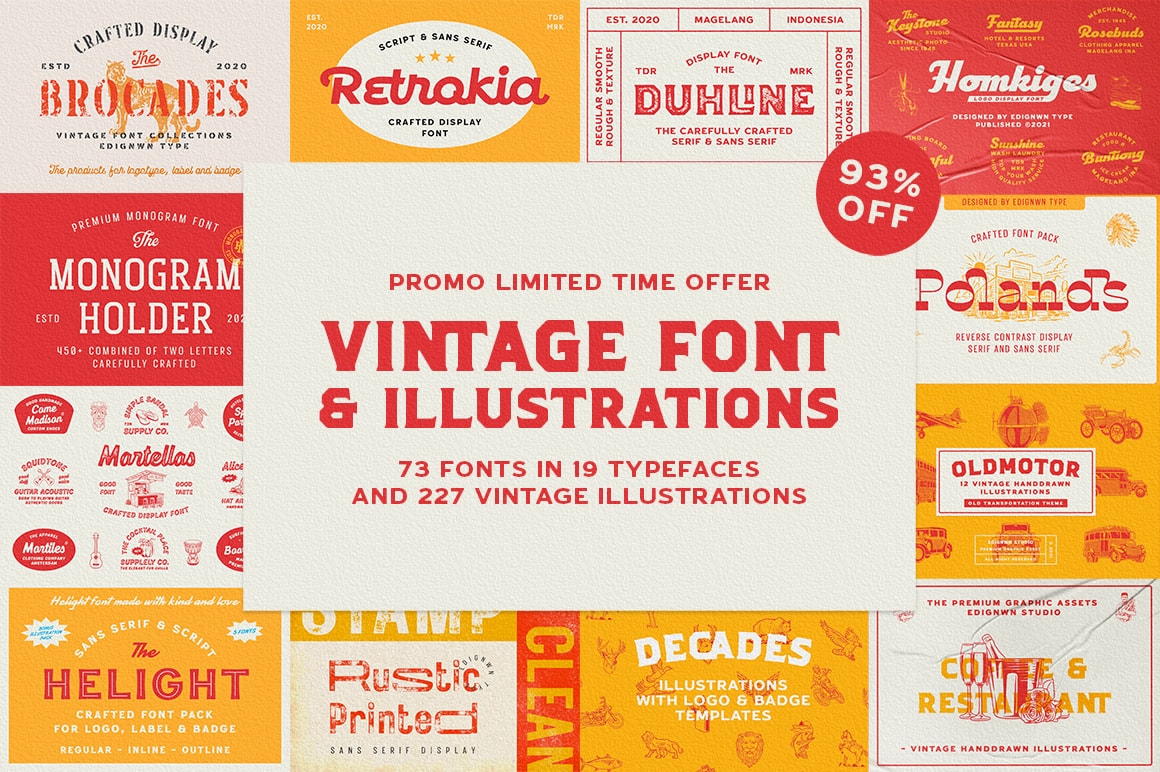
TL;DR:
- 10 vintage and retro font families
- 4 different font styles: regular, rounded, rough and stamp
- 3 graphic shapes sets
- OpenType features – ligatures and alternate characters
- More premade editable logo templates
Illustration sets:
Fonts:
- Brocades font
- Duhline font
- Helight font
- Homkiges font
- Martellas font
- Monogram Holder font
- Plastun font
- Polands font
- Retrokia font
- Rustic Printed font
Coffee & Restaurant Illustrations
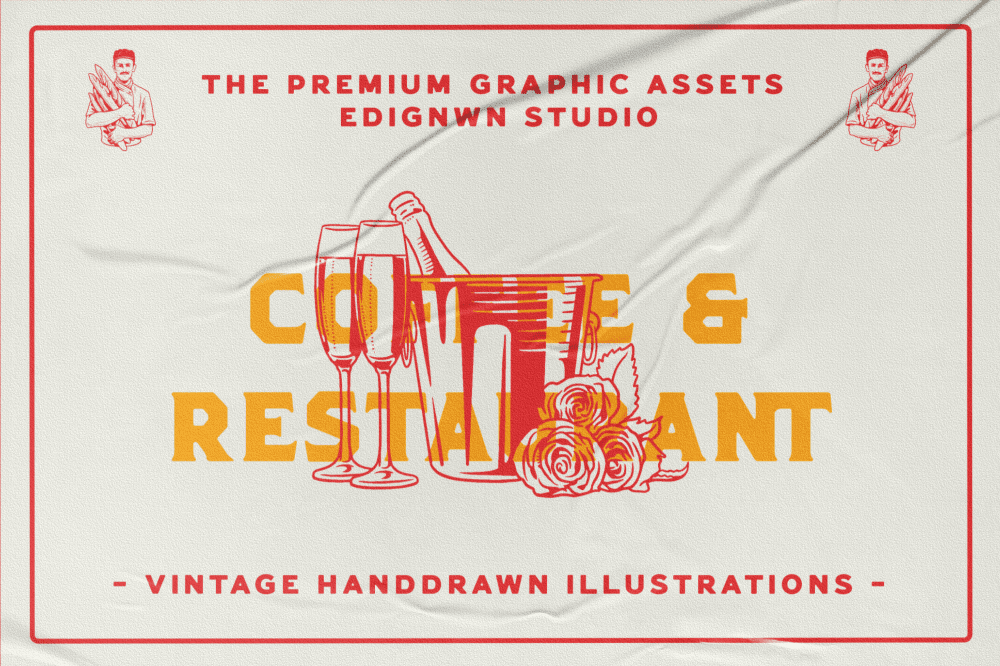
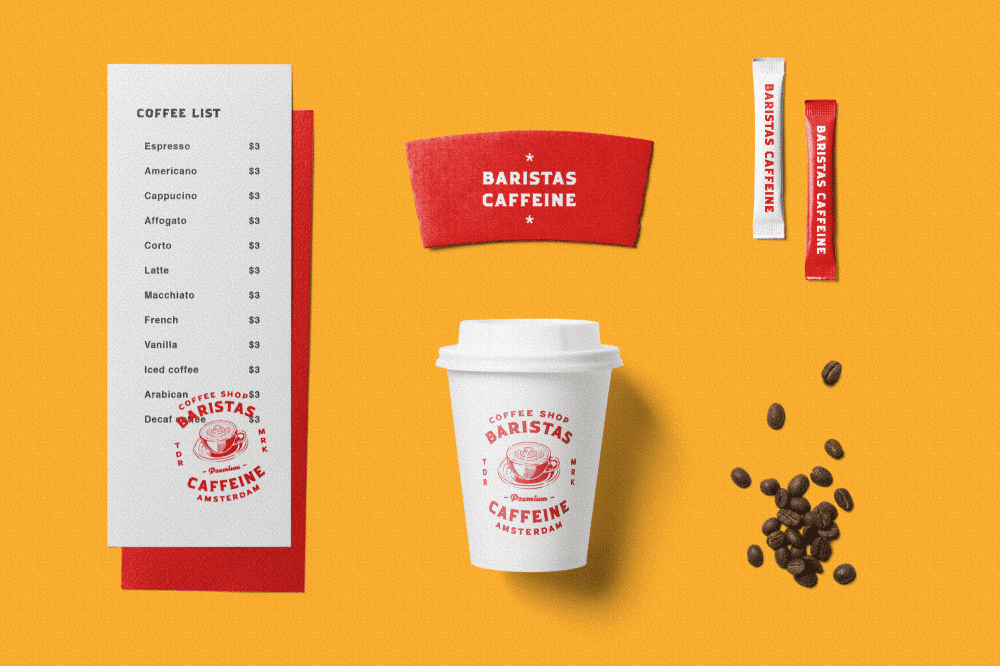
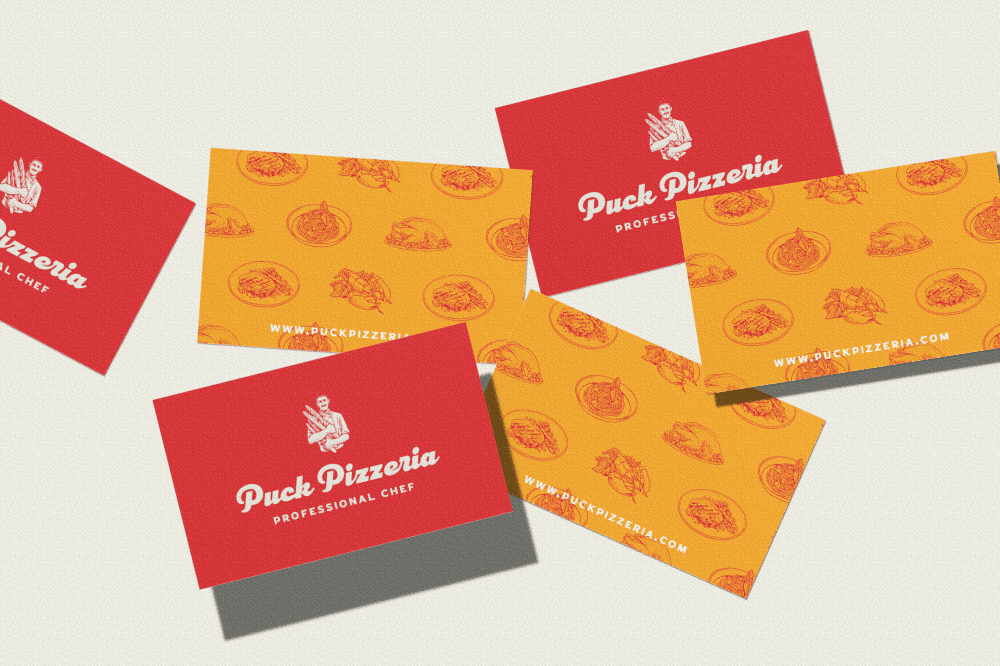
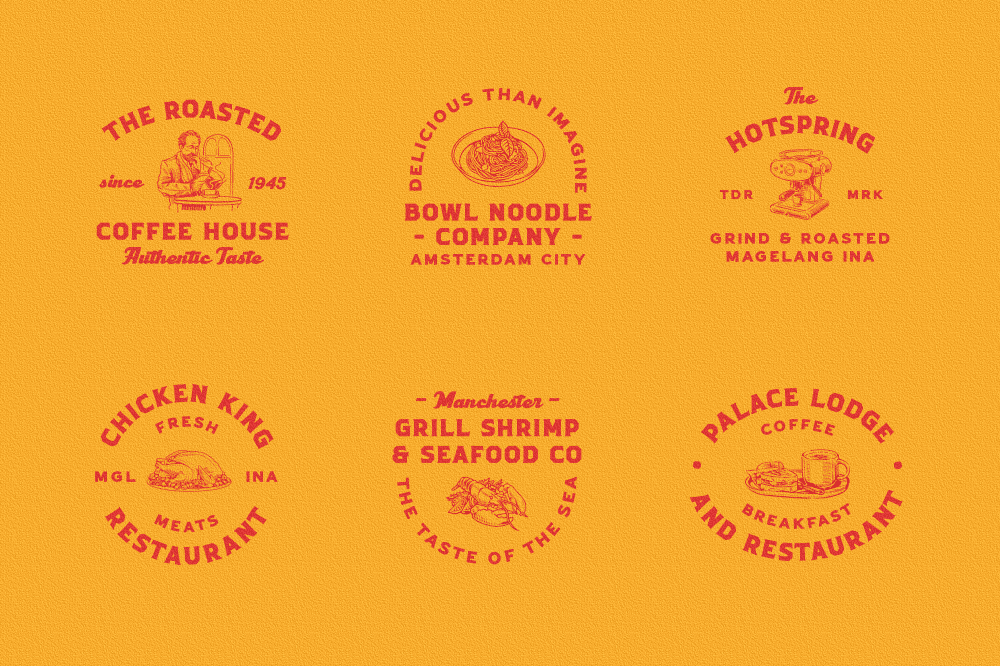
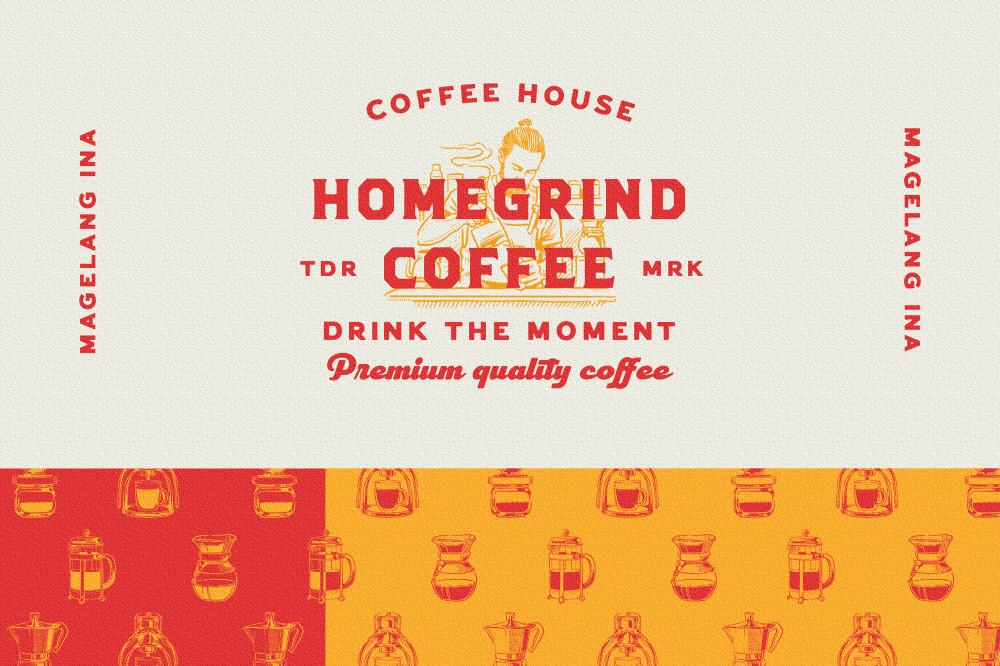
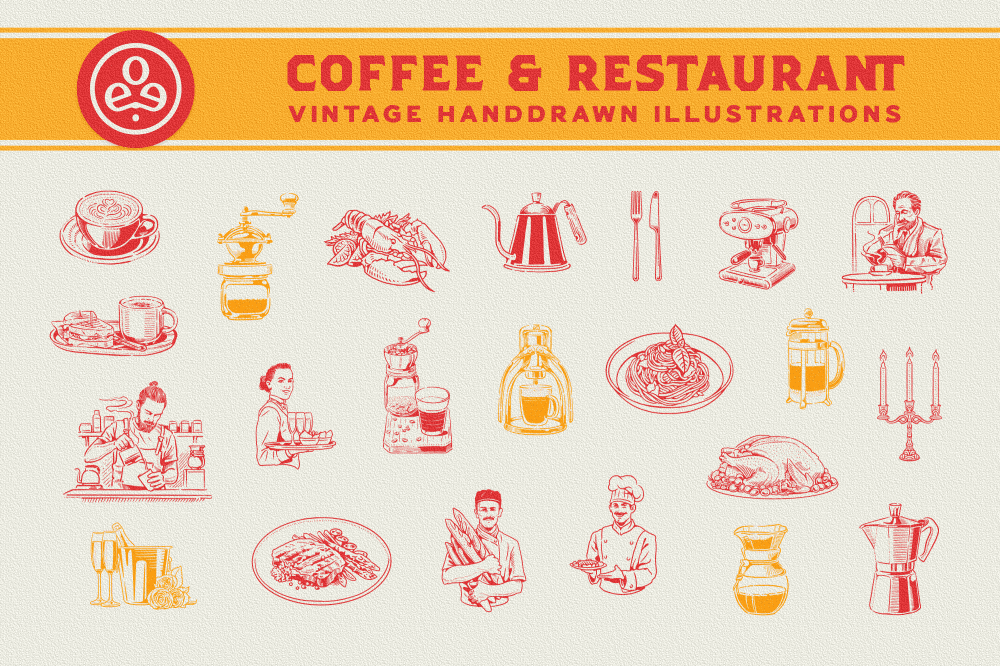
Decades Illustrations
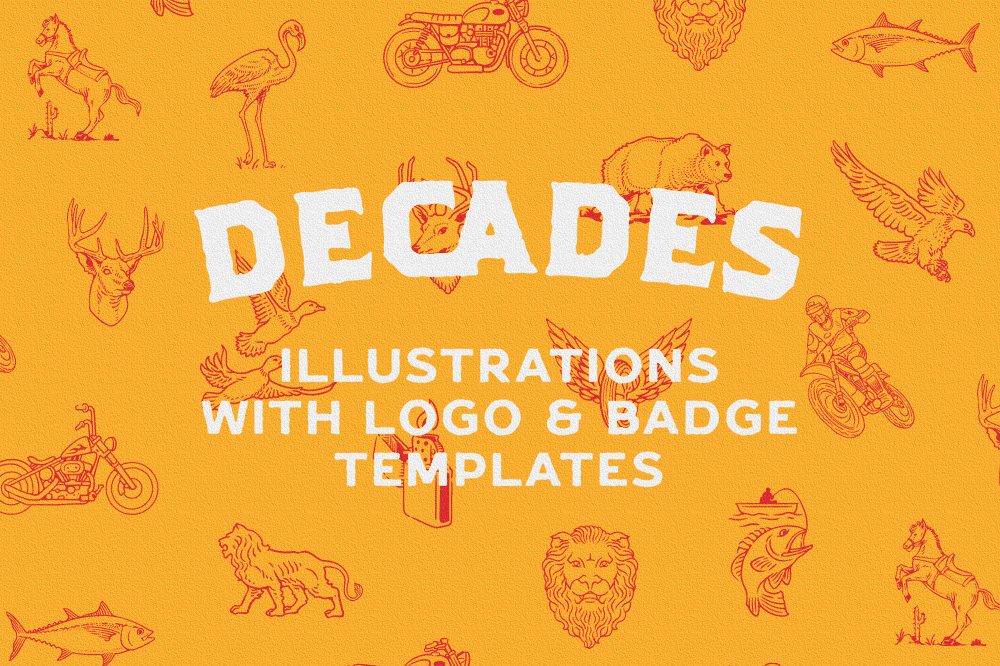
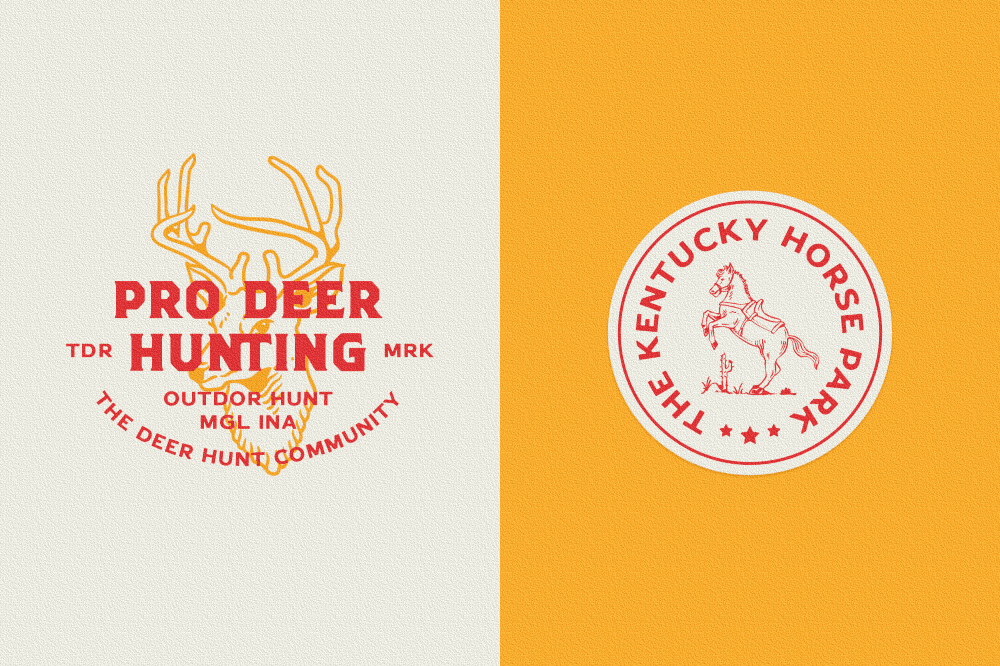
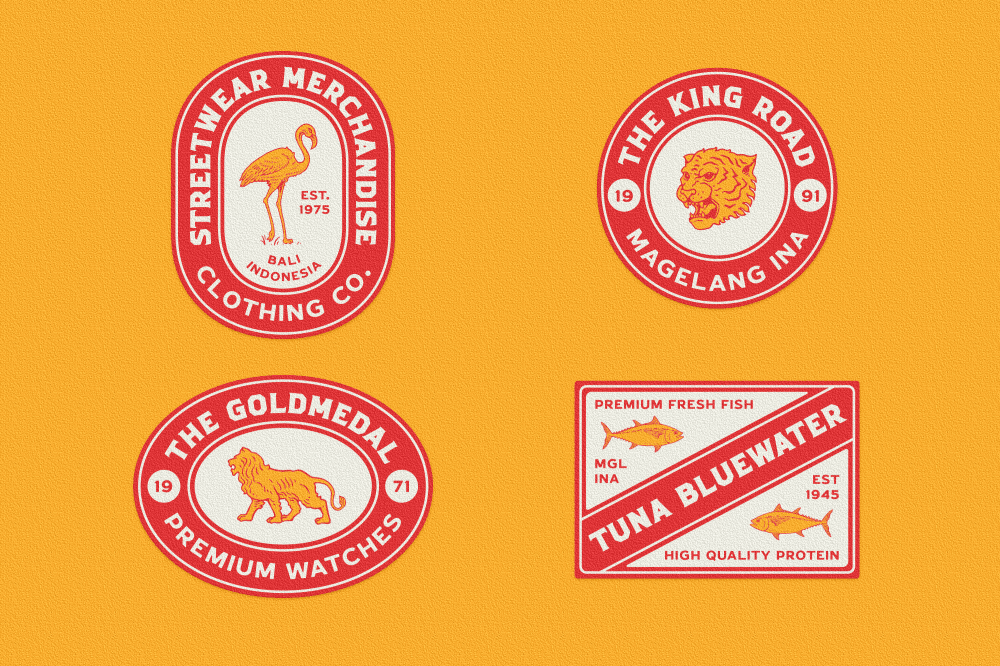
Oldmotor Illustrations
Brocades font
Duhline font
Helight font
Homkiges font
Martellas font
Monogram Holder font
Plastun font
Polands font
Retrokia font
Rustic Printed font